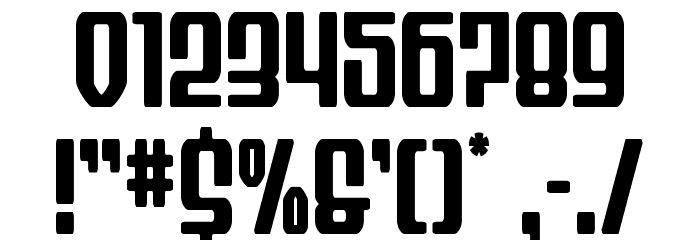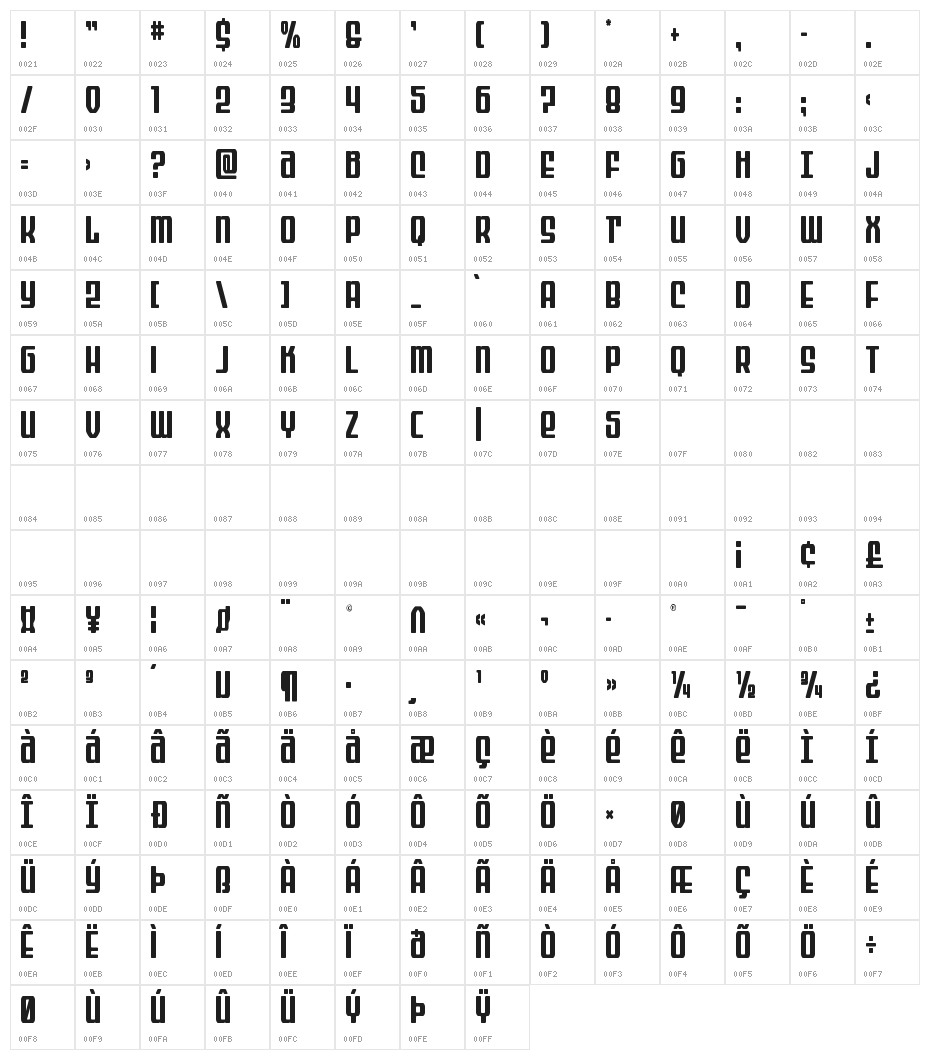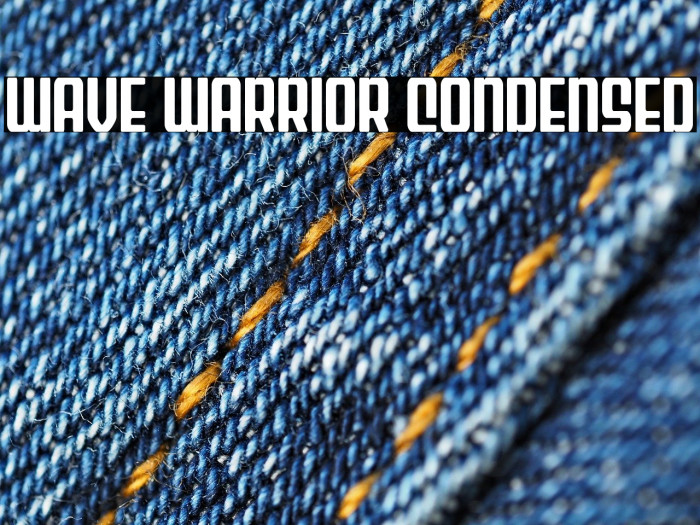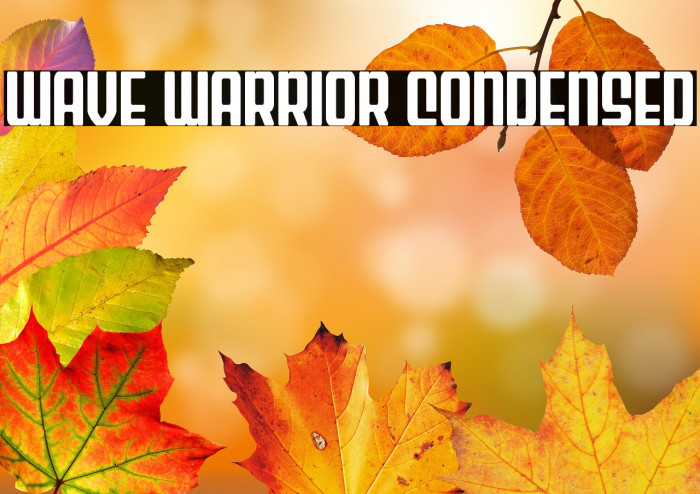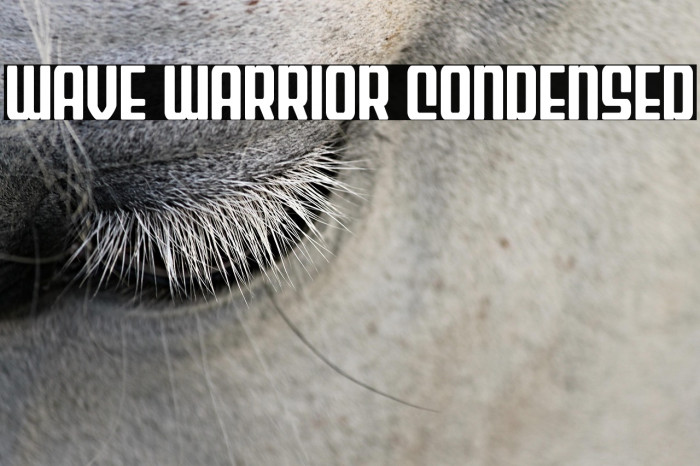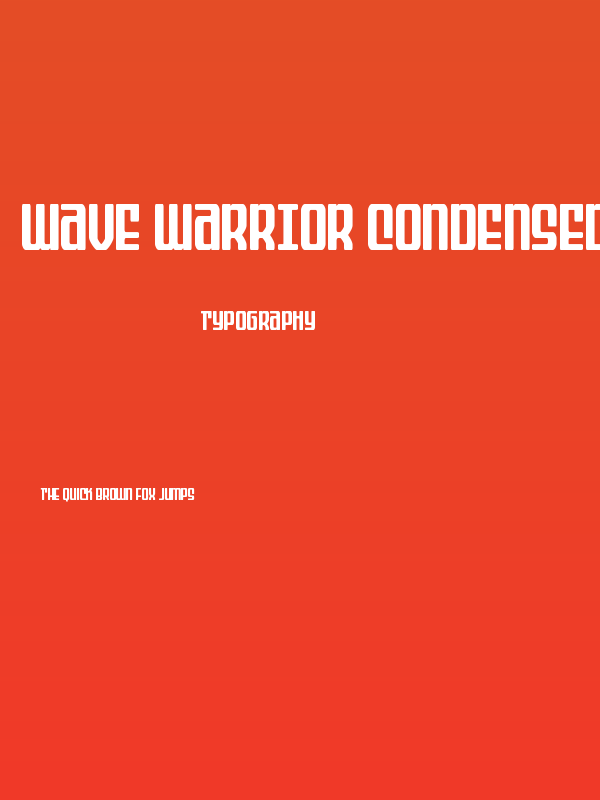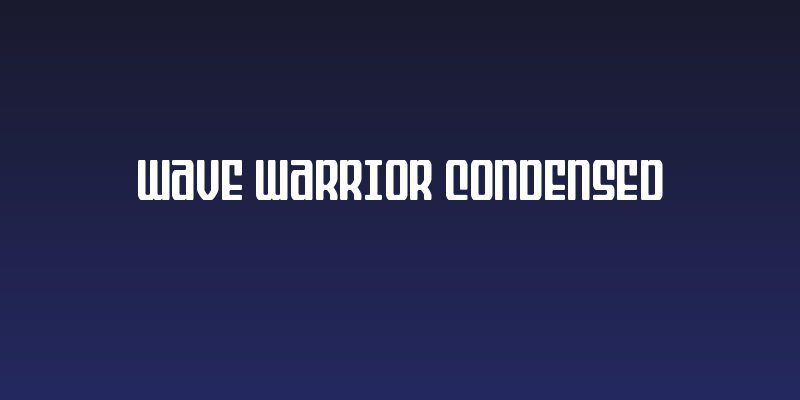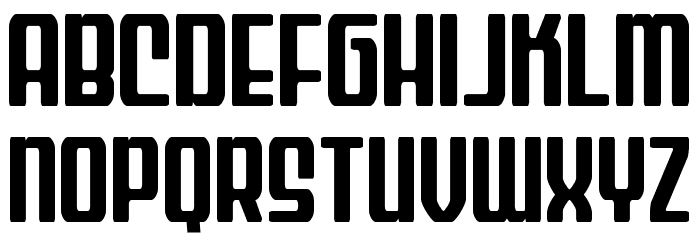
Wave Warrior Condensed Font
Wave Warrior Condensed Description
This font features a bold and condensed style with a modern, geometric appearance. The characters are uniformly thick, providing a strong and impactful presence. The uppercase and lowercase letters maintain a consistent height, enhancing readability and uniformity. The numerals and special characters are designed to match the boldness of the alphabet, ensuring a cohesive look across all text. This font's condensed nature allows for efficient use of space, making it ideal for headlines and titles where space is limited but impact is desired.
| Proposed Projects | Ideal for posters, headlines, branding, and logo design where a strong visual impact is needed. |